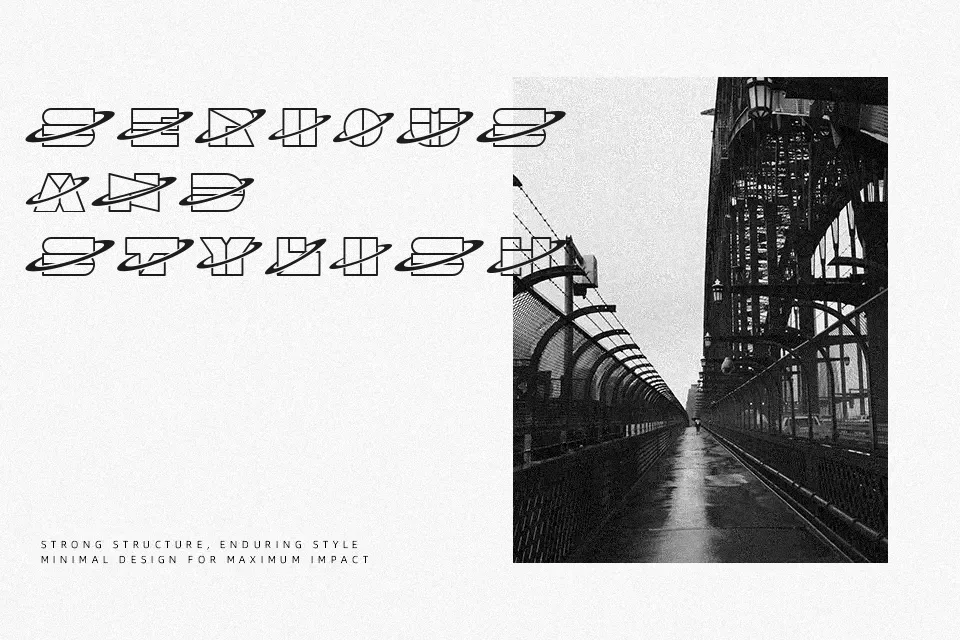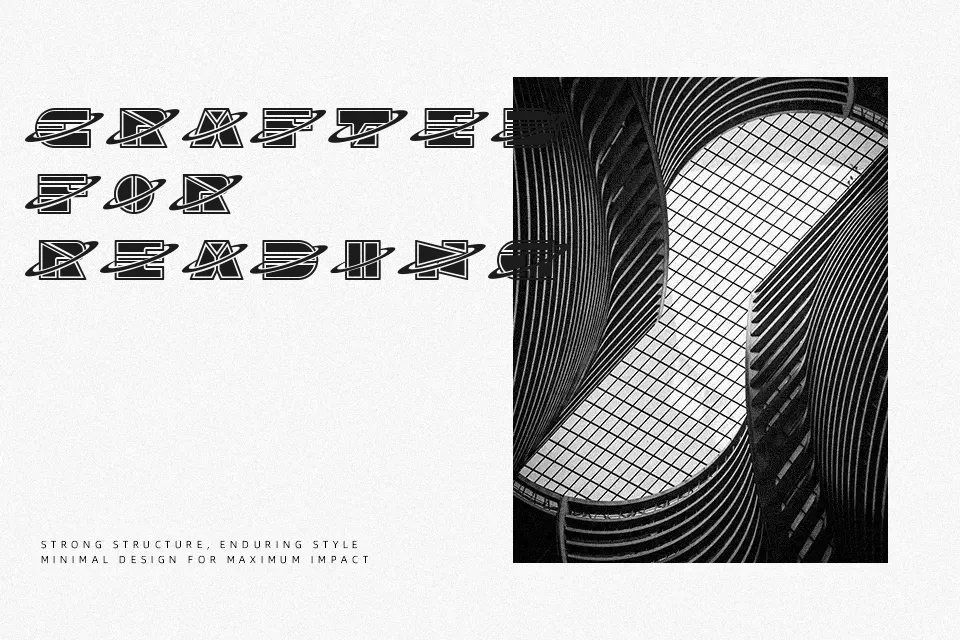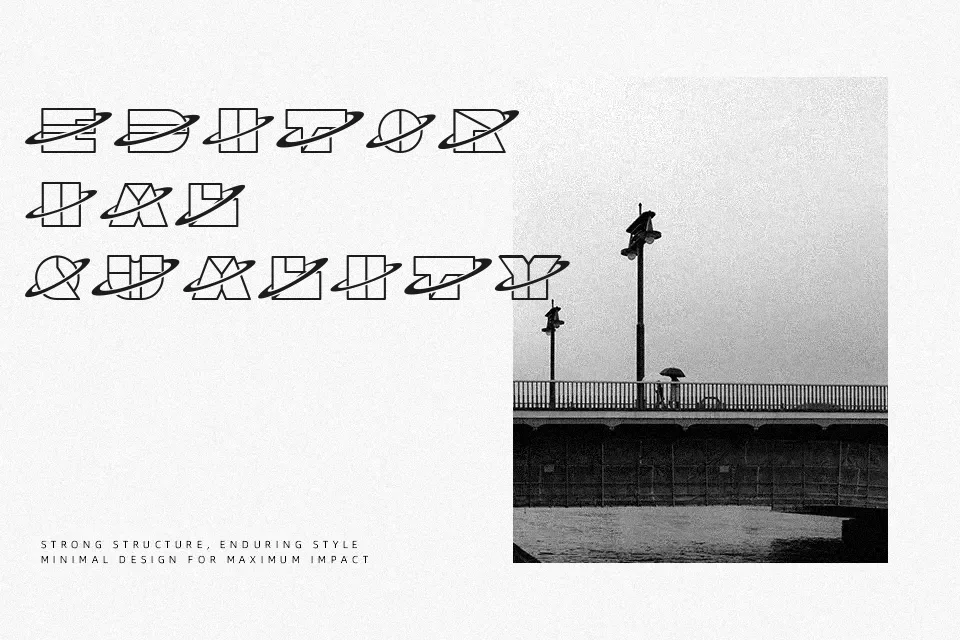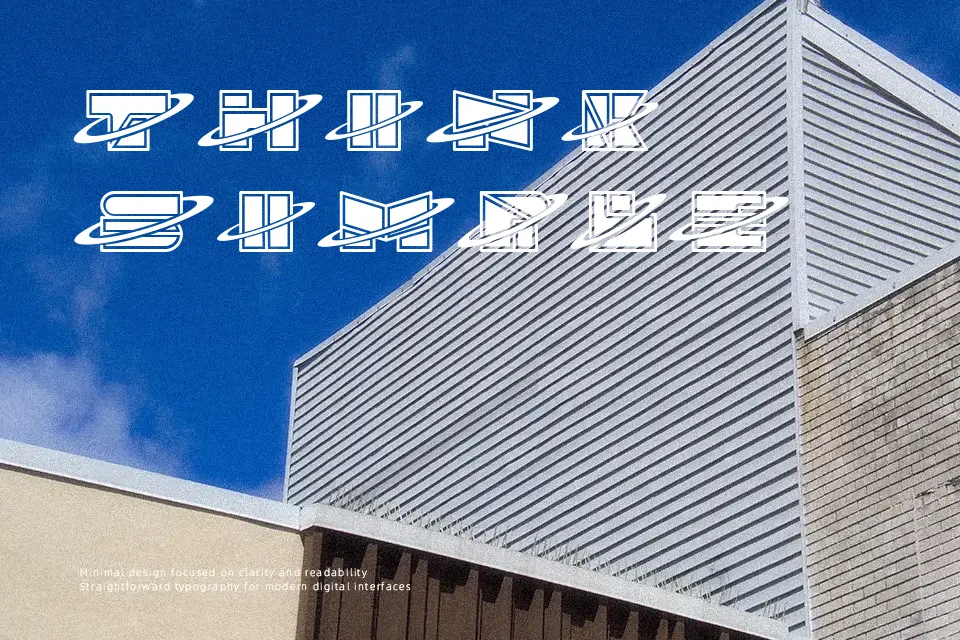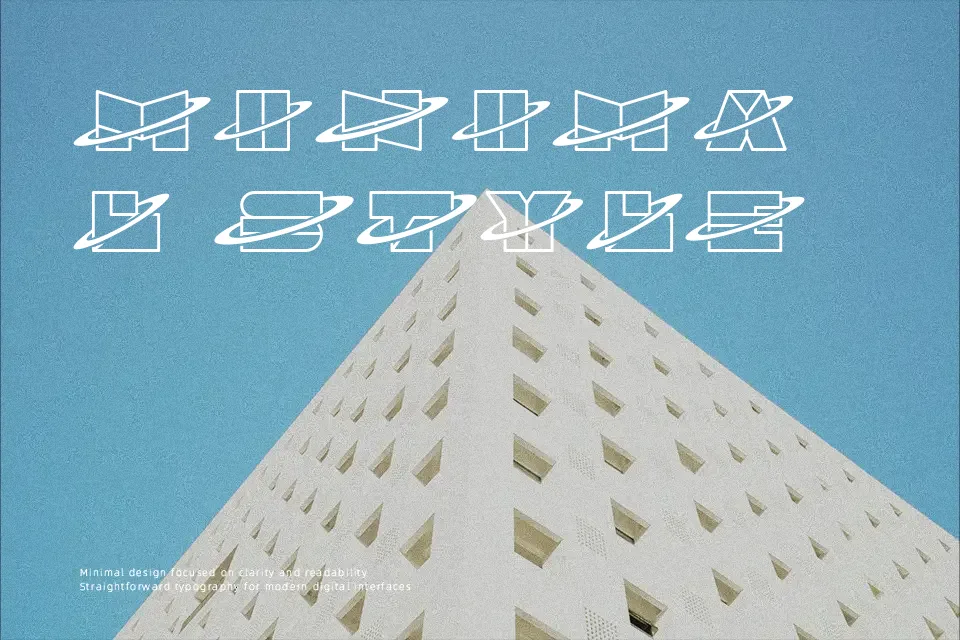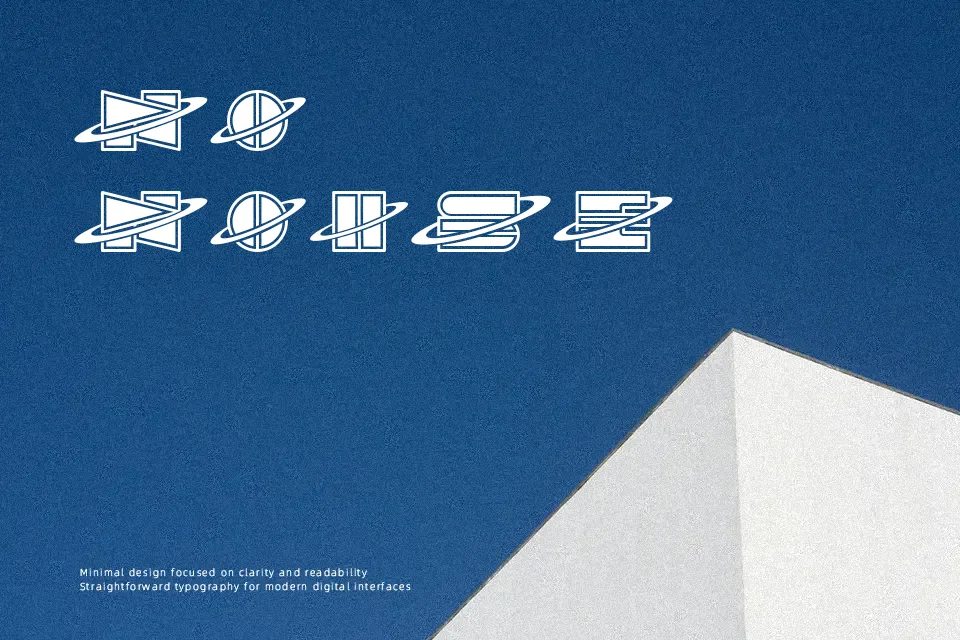
Channel Font
Channel Font commands attention with a bold display aesthetic constructed from heavy uniform strokes and disciplined geometric contours. The design features tight character spacing and balanced proportions that form a cohesive rhythm in short display settings, while the clean structural angles produce sharp, high-contrast silhouettes. These qualities make the typeface highly effective for poster headlines, apparel branding, product packaging, and title treatments. However, the substantial stroke density and decorative framing quickly impede character distinction when scaled down. As a result, the letterforms remain less suitable for continuous paragraphs, technical body text, or small interface labels where neutral readability is required.
Best For: music festival posters,apparel graphics,product packaging,website hero headlines
Not Ideal For: long paragraph text,small interface labels,technical manuals,corporate reports